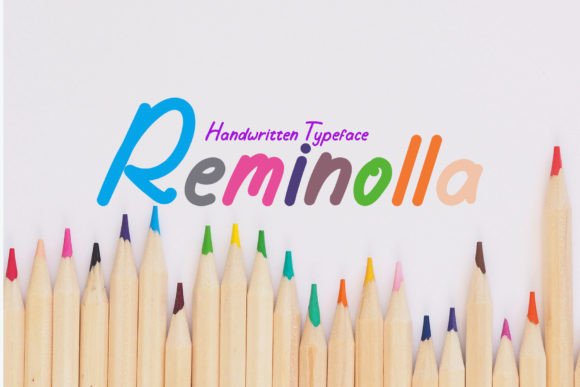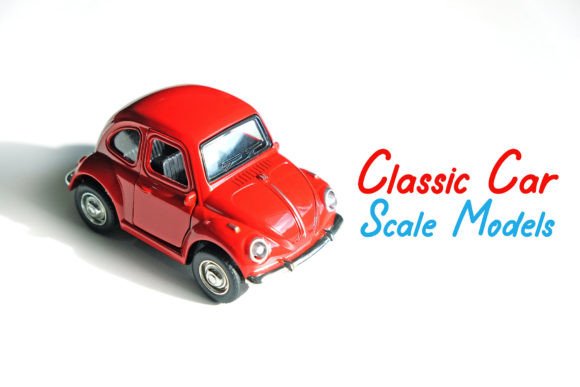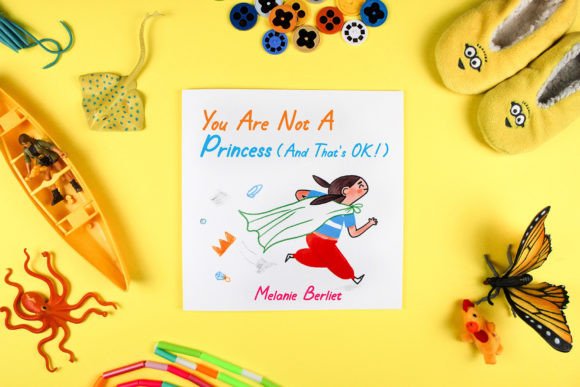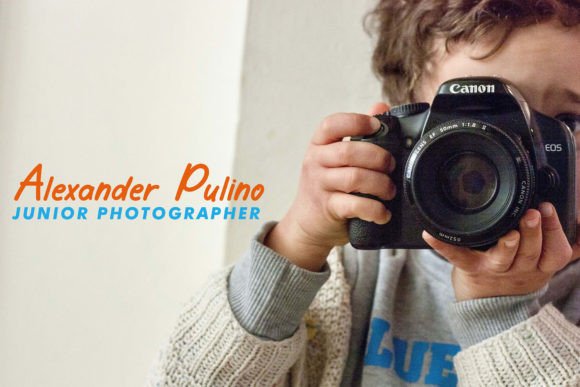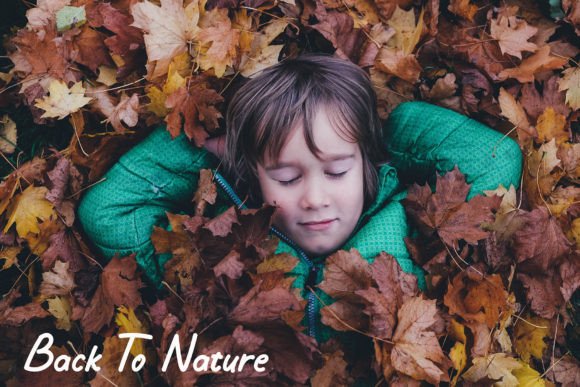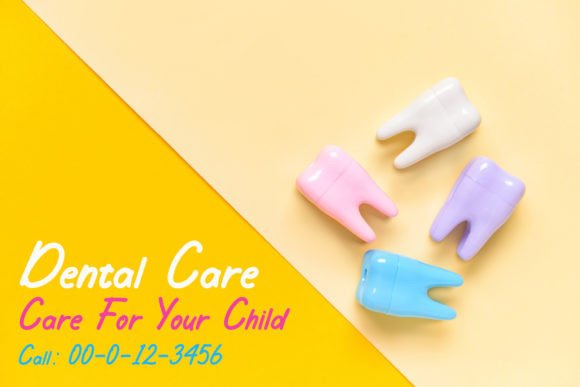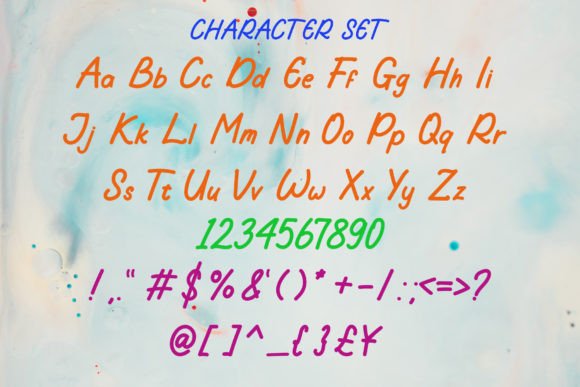
Reminolla Font
About Reminolla Font
**Reminolla: Your Casual and Friendly Handwritten Font**
Meet Reminolla, a casual and friendly handwritten font masterfully designed to become your go-to choice for a wide range of creative ideas. With its approachable style, this font has the potential to elevate your projects to new heights and quickly become a favorite in your font library.
Reminolla’s charm lies in its casual and friendly appearance. Its handwritten characters exude a sense of warmth and authenticity, making it a perfect choice for projects where you want to create a connection with your audience. Whether you’re working on personal or professional endeavors, this font brings a relatable and welcoming quality to your designs.
The versatility of Reminolla knows no bounds. It seamlessly fits into various design contexts, from casual branding and social media graphics to personal projects and beyond. Its readability and approachable aesthetics ensure that your message is not only conveyed effectively but also with a touch of friendly appeal.
Reminolla is designed to make each of your creative ideas shine. It adds a personal touch to your projects, making them more relatable and engaging.
In summary, Reminolla is more than just a font; it’s a reliable companion for your creative journey. Its casual and friendly style enhances your projects, creating a connection with your audience. With Reminolla, your designs will exude warmth and approachability, taking your creative ideas to the highest level. Make Reminolla your font of choice, and let your creativity soar with its friendly charm.